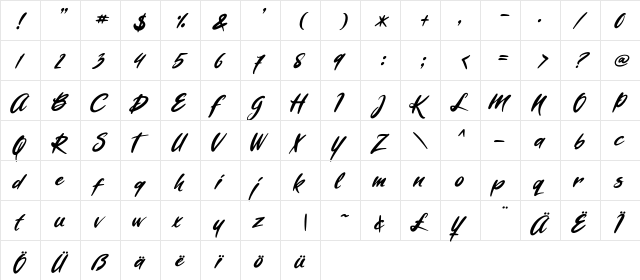
Willy Brothers Willy Brothers
| Foundry | Cundrawan (cove703) |
| Designer | Cundrawan (cove703) |
Design Context for Willy Brothers Typeface
Willy Brothers is a composed and adaptable typeface that performs quietly and consistently across a wide range of design contexts.